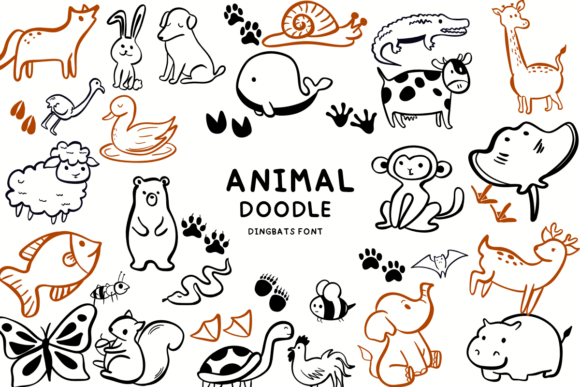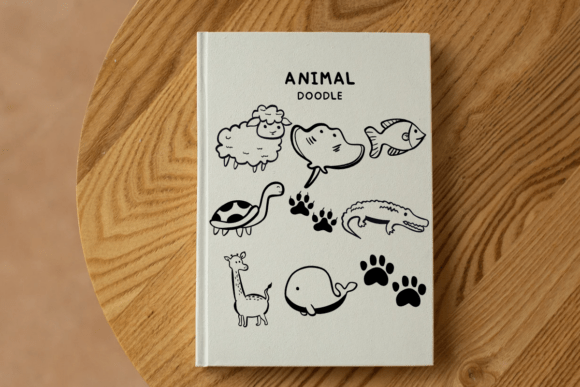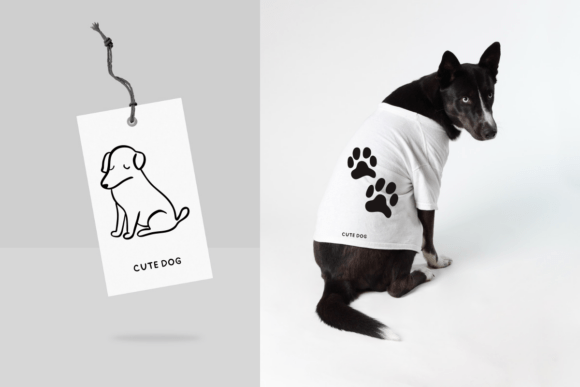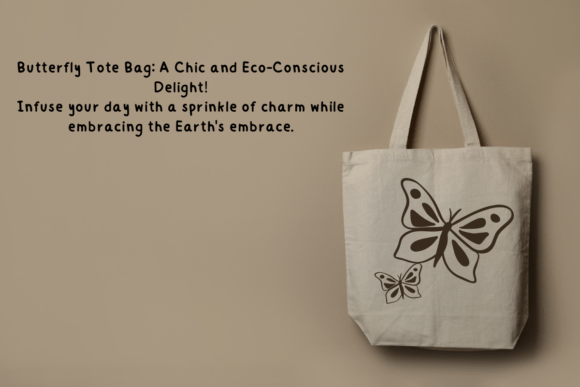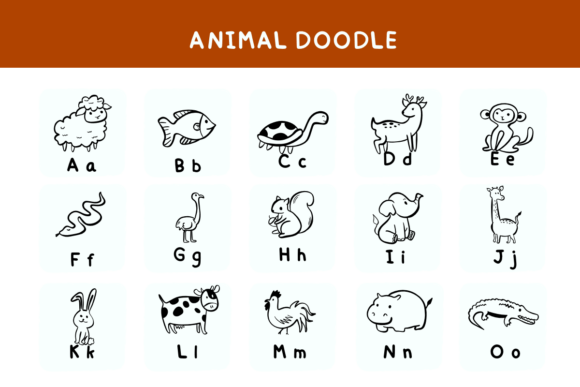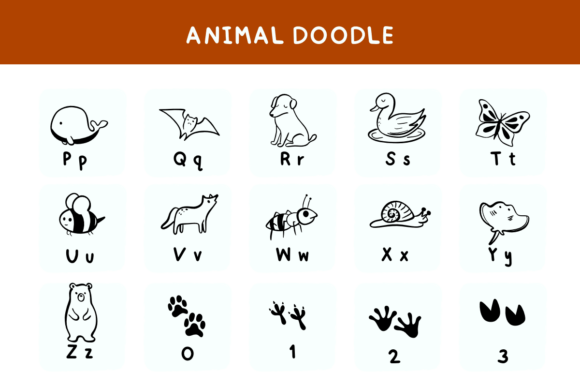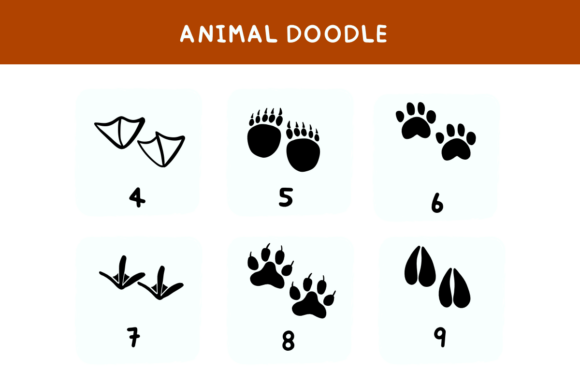
Get Ready to Unleash Your Inner Artist with Animal Doodle Font
Do you ever find yourself doodling in the margins of a notebook, bringing a blank page to life with simple yet charming drawings? If so, you’re not alone. Doodling is a universal language, a way to express ourselves and tap into our creativity. And what better way to channel that creativity than with a font that’s as playful as it is functional?
Meet the Animal Doodle Font, a delightful dingbats font that’s perfect for taking notes, writing a diary, or crafting greeting cards. But its uses don’t stop there – with its whimsical characters and endless possibilities, it’s a valuable tool for designers looking to add a personal touch to their projects. Whether you’re a seasoned pro or a budding artist, the Animal Doodle Font is sure to inspire your next creative project.
Animal Doodle Font Key Features
- Unique Characteristics: The Animal Doodle Font features a playful, whimsical design with intricate doodle illustrations of various animals, adding a touch of fun and personality to any design.
- Character Set: The font includes a comprehensive character set, including uppercase and lowercase letters, numbers, punctuation marks, and special characters, making it suitable for a wide range of design projects.
- Customization Options: The font allows for easy customization, with features such as ligatures, swashes, and alternate characters, enabling designers to add a personal touch to their designs.
Designer Review: Animal Doodle Font
At first glance, the Animal Doodle Font seems like a fun and playful addition to any design project. ✨ The whimsical illustrations of animals integrated into the font make it a great choice for projects targeting a younger audience or those with a lighthearted tone. The illustrations are cute and well-executed, adding a touch of personality to any text.
One of the standout features of this font is its versatility. ✨ It can be used in a variety of contexts, from children’s books to advertising campaigns. The font is also highly customizable, with options to adjust the size, color, and spacing of the illustrations. This level of control makes it easy to integrate the font into any design.
However, there are some limitations to consider. ⚠️ For one, the font may not be suitable for projects that require a more serious or professional tone. Additionally, the illustrations may not be detailed enough for designers who prefer more intricate graphics. The font also has a limited character set, which may be a concern for designers working on projects with complex text.
- Fun and playful illustrations
- Versatile and suitable for various contexts
- May not be suitable for serious or professional projects
- Limited character set
- Illustrations may not be detailed enough
Overall, the Animal Doodle Font is a great choice for designers working on projects with a lighthearted tone. While it has some limitations, its versatility and customization options make it a valuable addition to any design toolbox.
The Animal Doodle Font is perfect for:
- Children’s party invitations
- Social media graphics
- Handmade greeting cards
- DIY craft projects